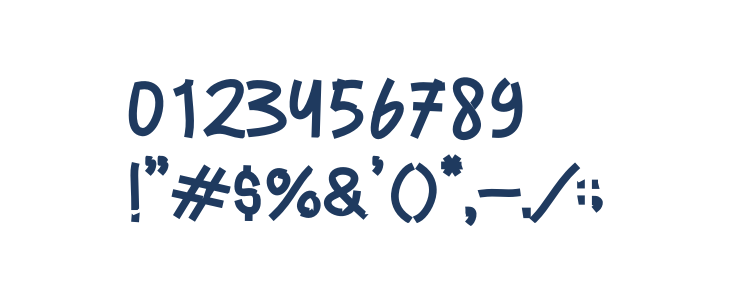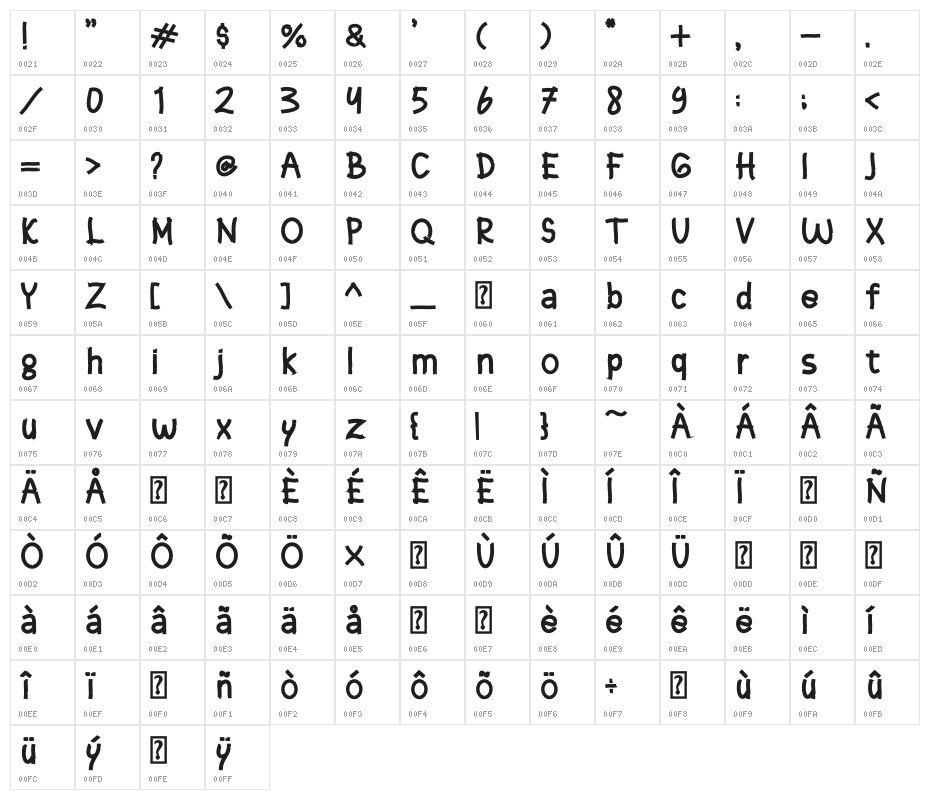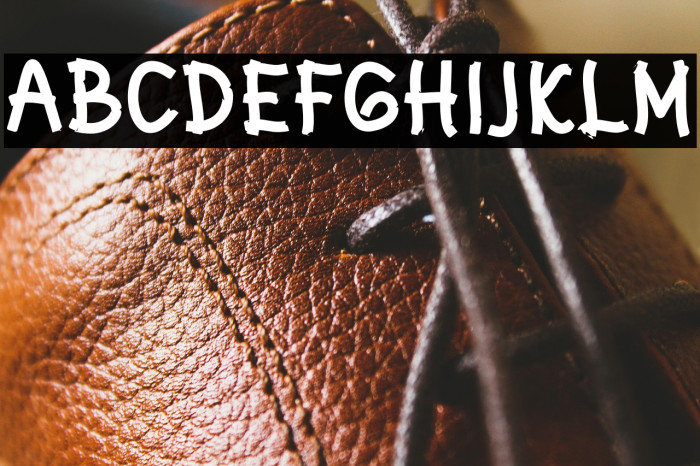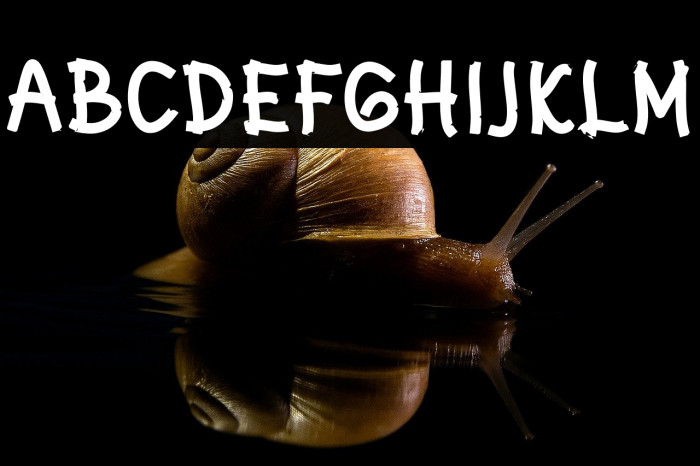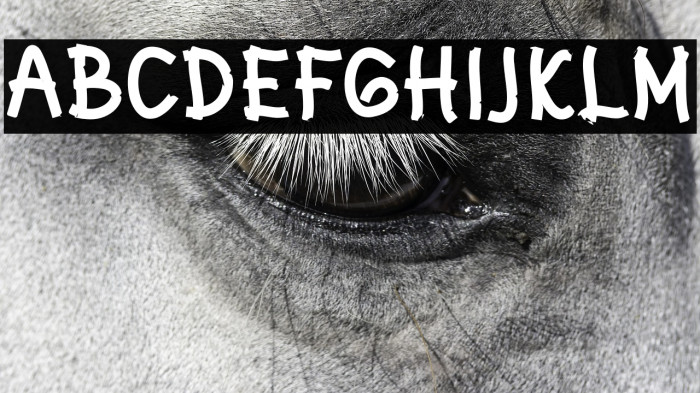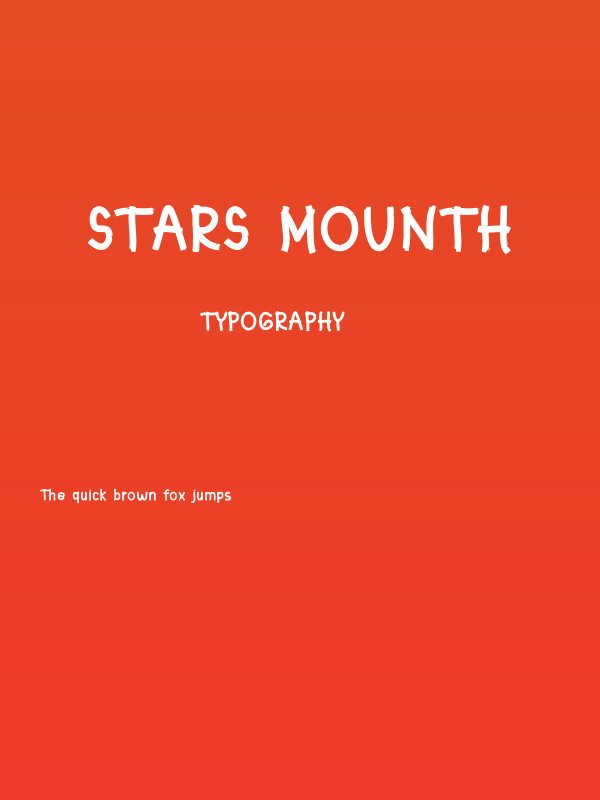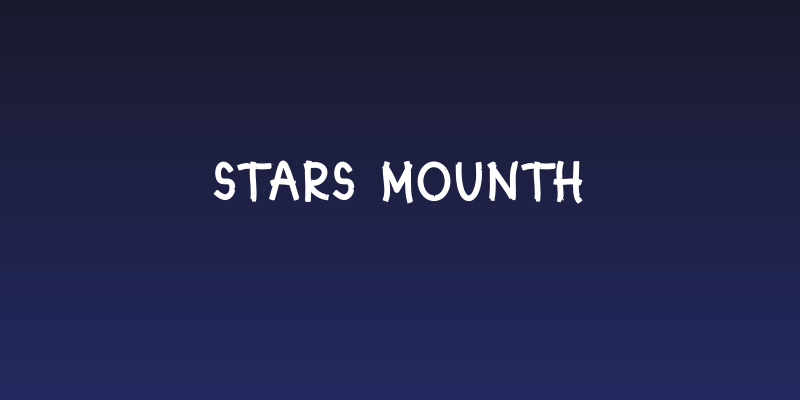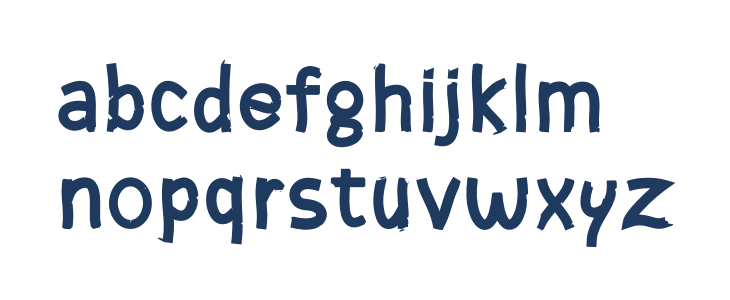
Stars Mounth Font
Stars Mounth Description
This font features a playful and bold handwritten style, characterized by its irregular strokes and slightly uneven baseline. The letters have a casual, artistic flair, with a mix of thick and thin lines that give it a dynamic appearance. The uppercase letters are bold and prominent, while the lowercase letters maintain a consistent flow, adding to the font's overall charm. Numbers and special characters follow the same playful design, making it versatile for various creative projects.
| Overall Style | Playful, Artistic |